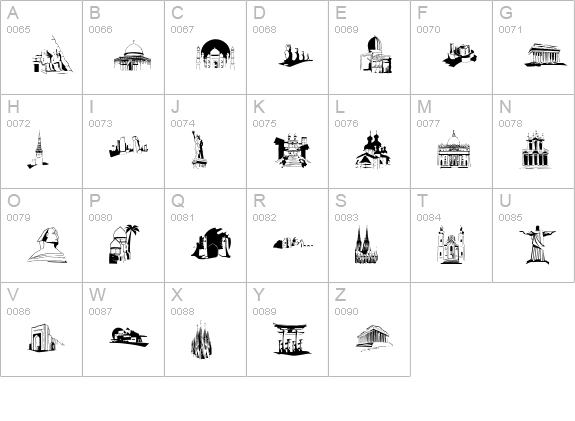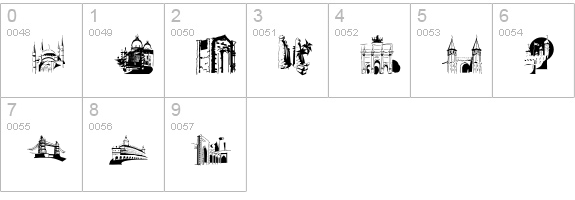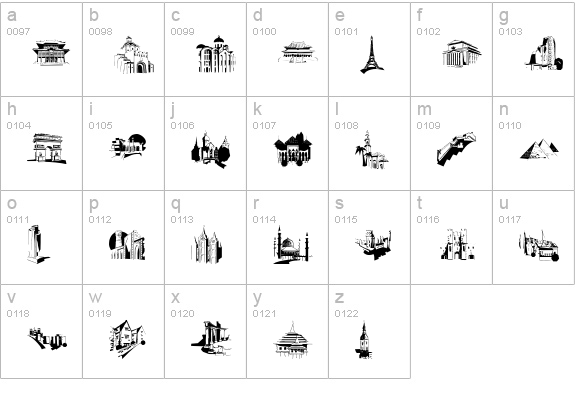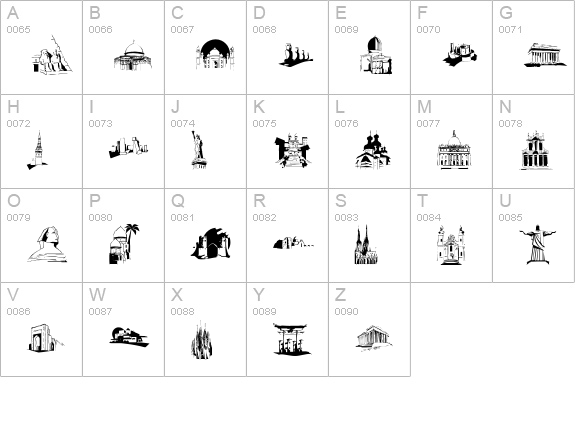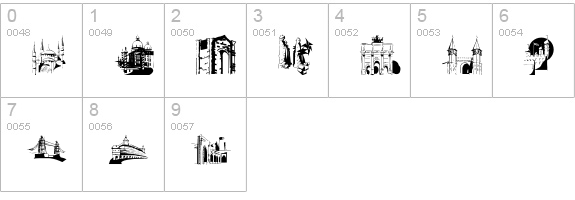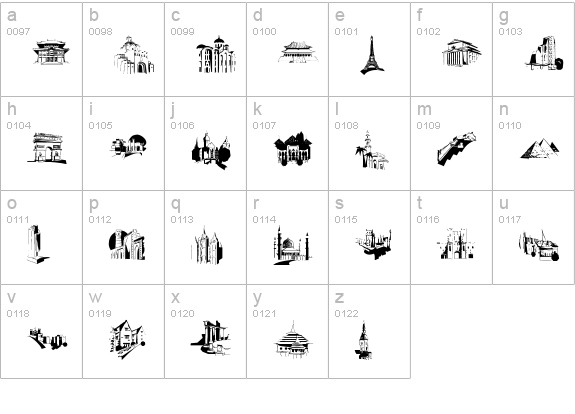
FamousBuildings Font Details
Introducing FamousBuildings font, a sophisticated and elegant typeface inspired by iconic architectural wonders from around the world. This unique font captures the grandeur and beauty of famous landmarks, making it perfect for adding a touch of class to your designs. With its clean lines and intricate details, FamousBuildings font is sure to make a statement. What's even better is that FamousBuildings font is completely free to download at FontsMarket.com! Simply head over to the website and get your hands on this exquisite font to elevate your projects with a touch of architectural charm. Whether you're working on branding, invitations, posters, or any other creative endeavor, FamousBuildings font is a versatile and eye-catching choice that will set your designs apart. Download it now and let your creativity shine with this stunning typeface.